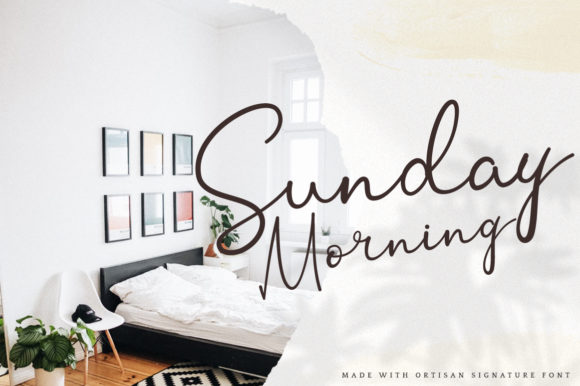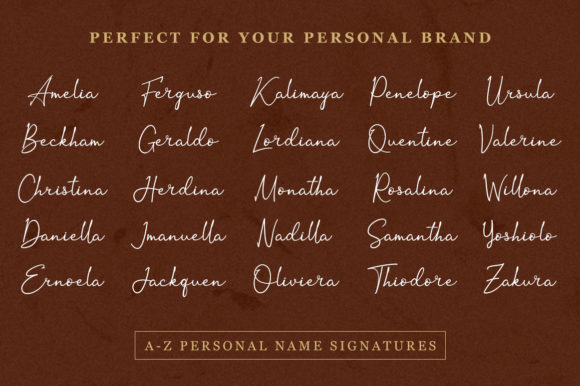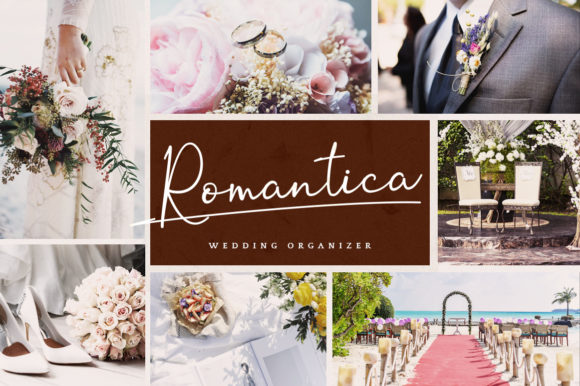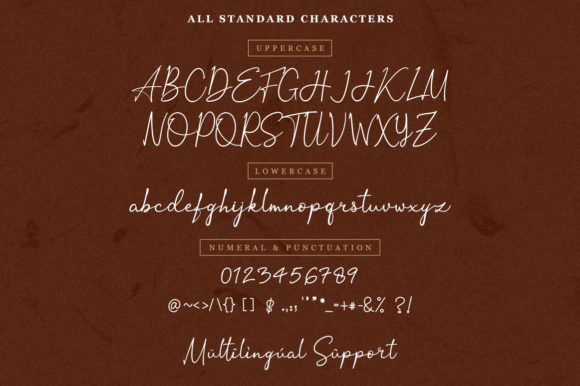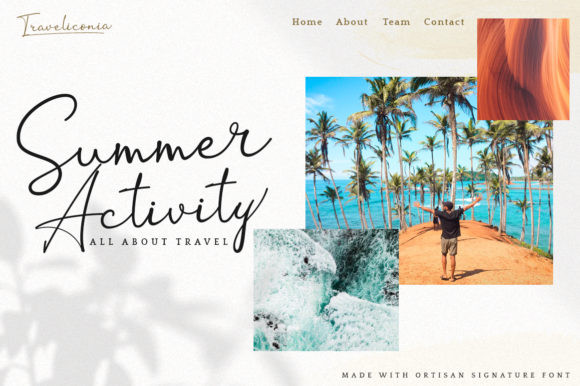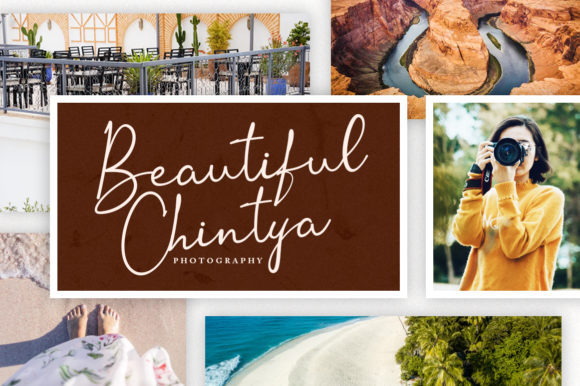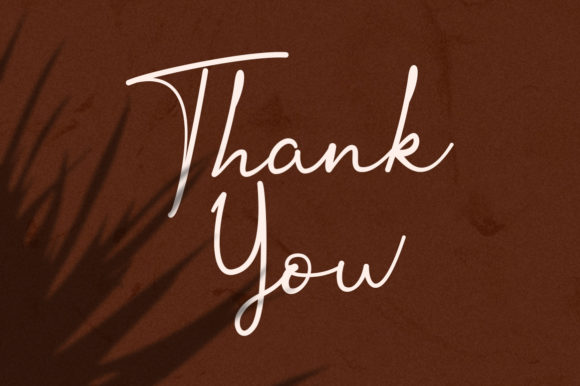
HomeScript FontsOrtisan Font Script Fonts Ortisan Font FacebookXPinterestWhatsApp Ortisan Font Poster 2 Ortisan Font Poster 3 Ortisan Font Poster 4 Ortisan Font Poster 5 Ortisan Font Poster 6 Ortisan Font Poster 7 Ortisan Font Poster 8 About Ortisan Font Ortisan is a light and breezy script font with an authentic twist. Get inspired by its unique charm! DOWNLOAD ON CREATIVE FABRICAThis font is sold and delivered by Creative Fabrica. Font Canyon may earn a commission if you buy through this link. People also explored Sarthina Font Lecturetres Font Baby Algutta Font Peach Font Lithonia Calligraphy Font Retro Summer Font Halloween Skull Font Capacitor Font Chocolate Bar Font 350 0 TagsOrtisan Font Previous articleMettda FontNext articleCallerious Font LEAVE A REPLY Cancel reply Comment: Please enter your comment! Name:* Please enter your name here Email:* You have entered an incorrect email address! Please enter your email address here Website: Save my name, email, and website in this browser for the next time I comment. Personal Use Free Heart Memory Personal Use Free Read more about this font Pelmeshka Personal Use Free Read more about this font Groomer Personal Use Free Read more about this font Anti Personal Use Free Read more about this font BLOG Exploring Font Trends Shaping Communication in the Digital Era Fonts, like all design elements, are subject to trends. They play a crucial role in communicating a brand's personality,... Using Fonts in Digital Marketing: Tips to Strengthen Your Brand Identity Top 7 Google Fonts Alternatives for Faster and Privacy-Friendly Web Design (2025) How to Install and Use Fonts on Windows, macOS, and Web Projects